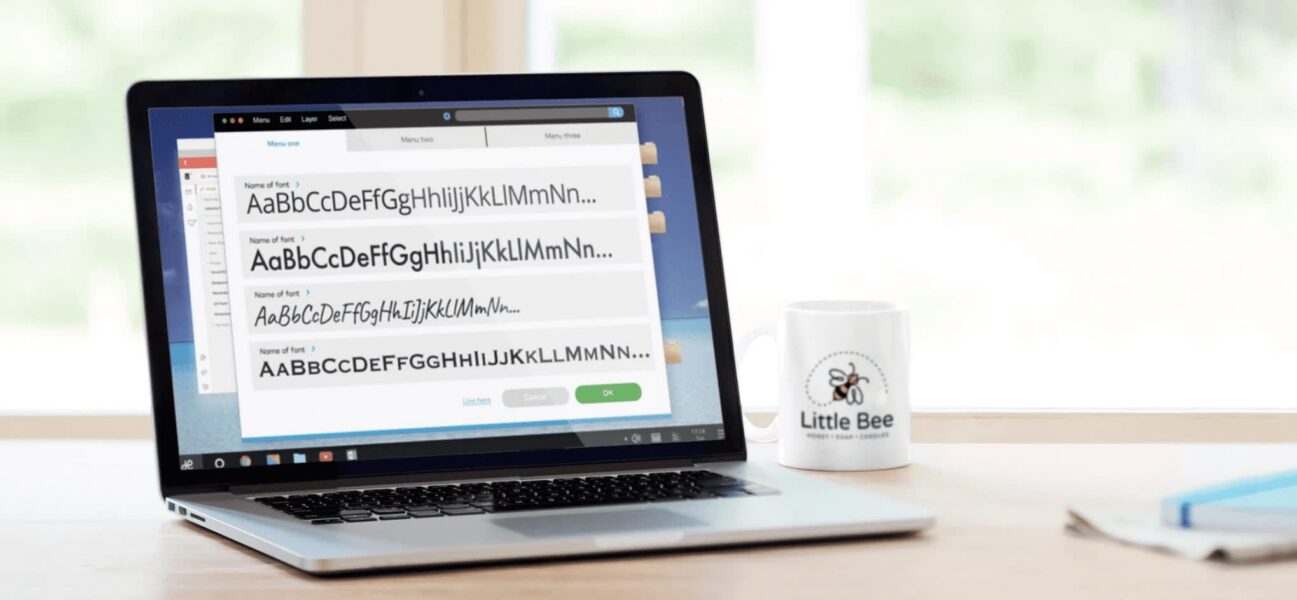
With easy-to-read fonts, your brand message comes through loud and clear. The fonts you choose are a key component of your website design, quickly conveying your brand identity to visitors and potential customers. Choosing readable fonts can impact everything from how your brand is perceived to the accessibility of your content across both print and digital channels. What could be more important than that?
With so many fonts to choose from, though, the selection process can be overwhelming. So, first, understand what makes a font easy to read, then discover 12 simple fonts to use on everything from your small business website to print marketing materials.
- Easy-to-read fonts are vital for effective branding and design because they ensure your message is clear, accessible and engaging for all audiences.
- Key features of readable fonts that work across digital and print formats include clear letterforms, balanced spacing and distinct characters.
- The most readable fonts include Georgia, Helvetica, Roboto and Verdana, each offering excellent readability and versatility for business use.
What makes a font easy to read?
Whether you’re looking for flyer and brochure fonts or social media and website fonts, the most readable fonts share key features that optimize their clarity and accessibility. Typographic readability factors include:
- X-height: This is the relative height of lowercase letters compared to uppercase. Taller lowercase letters (like ‘x’) improve legibility on screens, while in print, they provide a balance that’s easier for reading longer texts.
- Stroke contrast: This is the variation between thick and thin lines. Fonts with minimal contrast are easier to read on-screen, while higher contrast fonts can look great in print without losing their clarity.
- Letter spacing (kerning): This is the space between individual letters. Balanced spacing stops text from looking cramped and makes on-screen scanning easier. It also helps readability in print, especially in denser paragraphs.
- Character distinction: Easy-to-read fonts have clear differences between letters like ‘i’, ‘j’, ‘1’ and ‘l’. This prevents confusion in digital text and improves accuracy in printed signs or body copy.
- Serif or sans-serif: Serif fonts are more traditional fonts that include small decorative strokes and work well for body text. Sans-serif fonts are simpler and more streamlined, making them a better choice for website design and mobile content. Experts generally agree that sans-serif fonts are easier to read on digital devices, while simple serif fonts are best for printed marketing materials.
Why are legible, simple fonts important for businesses?
Ever struggled to read text on websites or flyers because of the font? Frustrating, right? For businesses, the right font isn’t just a design choice—it’s a key part of getting your brand message across. Here’s why using easy-to-read fonts is non-negotiable for businesses…
Improved communication
Easy fonts ensure your message is understood instantly, while overly decorative fonts can confuse your message, increase misinterpretations and even send potential customers away.
Research by Thomas Bohm from User Design, Illustration and Typesetting highlights common mix-ups among similar-looking letters and symbols. For example:
clear / dear
CS5 / CSS
105 / IOS
Z2 / 22
To maintain credibility and deliver a clear message every time, opt for readable fonts and explore fresh font trends.
Posters with readable sans-serif fonts
Accessibility and inclusivity
Not everyone views your website or marketing materials the same way. Research by Thomas Bohm found that as people age or face vision challenges, confusing fonts can lead to mix-ups like:
i / j
B / 8
0 / O / o
Accessible font design helps people with dyslexia, visual impairments or cognitive challenges consume your content more easily.
Enhanced branding
Your brand fonts are among the first things people notice about your brand. A legible font conveys professionalism and trustworthiness, whereas a confusing font might make your branding seem outdated and your business unreliable.
Use bold, high-contrast fonts for logos and signage, and simple fonts like sans-serifs for digital body copy or small print.
Easy-to-read fonts on branded business cards
Stronger user experience (UX)
The easier your content is to read, the more likely users are to stay on your page, absorb your message and take action. In web design, readability equals usability—legible fonts enhance navigation, reduce eye strain and improve retention rates.
Top 12 easy-to-read fonts for businesses
1. Georgia
Great for: Printed materials like flyers, postcard fonts and website body text.
Georgia is a serif font, meaning each letter has an embellishment in the form of a small line. Despite serif fonts being more decorative, they can still be a good choice for websites. Because Georgia was originally designed for Microsoft and created with low-resolution screens in mind, it’s one of the easiest fonts to read on desktops and mobile sites.
2. Helvetica
Great for: Brand names, headlines and logos.
Along with Georgia, Helvetica is considered to be one of the most readable fonts, according to The Next Web. This sans-serif font is one of the world’s most popular typefaces and is considered a modern classic.
3. PT Sans & PT Serif
Great for: Branding and multi-platform consistency.
Can’t decide whether serif or sans-serif is for you? ParaType comes in both, so you can experiment to see the difference or use a combination of the two. PT Sans and PT Serif work together beautifully.
4. Open Sans
Great for: Web and mobile body copy.
What makes this popular sans-serif font read so well is partly the kerning—the amount of space between characters. According to Google, Open Sans is “optimized for print, web, and mobile interfaces, and has excellent legibility characteristics in its letterforms.”
5. Quicksand
Great for: Mobile-first branding and modern designs.
With so many customers using smartphones and tablets to access online content, it’s paramount that your font choice works on small screens. Quicksand, a sans-serif font from Google, does well on mobile devices. Its geometric shapes were designed to communicate friendliness.
6. Verdana
Great for: Large blocks of text on screens.
Verdana is another go-to sans-serif font for web design because of its readability. Like Georgia, it was created specifically for computer screens. It’s a solid font choice for large blocks of text.
7. Rooney
Great for: Brands with a fun or friendly tone.
Part of your brand identity is its personality, and that personality should also be reflected in your font. A custom serif font like Rooney could be a perfect fit if your brand is lighthearted and unconventional. The font’s designer, Jan Fromm, says that “rounded shapes and soft curves” leave the reader with an “overall impression of warmth and smoothness.”
8. Karla
Great for: Minimalist web design and modern brands.
Karla is a tidy and simple sans-serif font that Google describes as “popular and quirky,” making it another good pick for distinctive, fun-loving brands.
9. Roboto
Great for: Mobile-first designs and apps.
Created by Google for use with its Android mobile operating system—and now also used for Chrome—Roboto is a little bolder than some typefaces. Google calls it “modern, yet approachable.” So, if that sounds like your brand, give this readable serif font a go.
10. Ubuntu
Great for: Tech brands and start-up culture.
If you’re looking for a distinctly modern sans-serif font, try Ubuntu, which comes from the South African word meaning “humanity.” This is a humanist-style typeface, meaning that it references calligraphy and the way humans write by hand.
11. Lato
Great for: Professional websites and brand identity.
Art and design resources Creative Bloq named Lato one of the 10 best Google Fonts for websites: “The semi-rounded details of the letters give Lato a feeling of warmth, while the strong structure provides stability and seriousness,” which is ideal for a business website.
12. Futura
Great for: Bold headers and clean branding.
Another factor to consider when choosing your business font is the tone of your content, whether digital or printed. Futura is one of those fonts that can be used for both formal and casual contexts. It’s always sharp and clean, and when your goal is readability, that counts for a lot.
Key characteristics of easy-to-read fonts
The 12 fonts we’ve covered are some of the most readable fonts, but they’re not the only options. You can find plenty of easy fonts that suit your brand perfectly. Just be sure to look for:
- Clear letterforms: Avoid fonts with overly decorative or intricate designs that can blur characters.
- Good spacing: Fonts with balanced spacing between letters (kerning) prevent text from looking cramped.
- Distinct characters: Choose fonts where letters like ‘O’ and ‘0’ or ‘i’ and ‘j’ are easy to tell apart.
- Appropriate weight: Opt for medium-weight fonts—too thin or too bold typefaces can be hard to read.
- Simple design: Sans-serif fonts often work best for screens, while serif fonts can add elegance to print without sacrificing legibility.
By keeping these traits in mind, you’ll find the easiest font to read that complements your brand style.
Body text in brochures needs easy-to-read fonts
Ready to put these fonts to use?
The right font does more than look good—it makes your message clear and your brand unforgettable. The easiest fonts to read are simple, clear and balanced, ensuring your audience stays engaged.
Use these easy fonts to create custom business cards, signage, branded stationery and promotional products. With VistaPrint supporting all 12 of these easy-to-read fonts, you can print everything your business needs to shine.
Simple fonts FAQs
Why are fonts important for branding?
Fonts show off your brand’s personality. The right font can make your business memorable and professional. Easy-to-read fonts ensure your message stands out, whether on your website, business cards or branded merch.
Why is font readability important for design?
Readable fonts keep your audience engaged and your message crystal clear. It’s as simple as that.
What makes a font “easy to read”?
Clear letterforms, good spacing and clean designs are key to easy-to-read fonts. Easy fonts avoid confusing characters like 0/O or i/j and look great on any screen or printed material.
Are serif or sans-serif fonts easier to read?
It depends on where you’ll use it. Sans-serif fonts such as Roboto are great for screens, while serif fonts like Georgia shine in print. Choose a readable font that fits its use and your brand style.
What are the best fonts for signs?
The most readable fonts for signs include Verdana, Helvetica and Futura, especially when printed in bold, high-contrast colors.
Which fonts are best for logos?